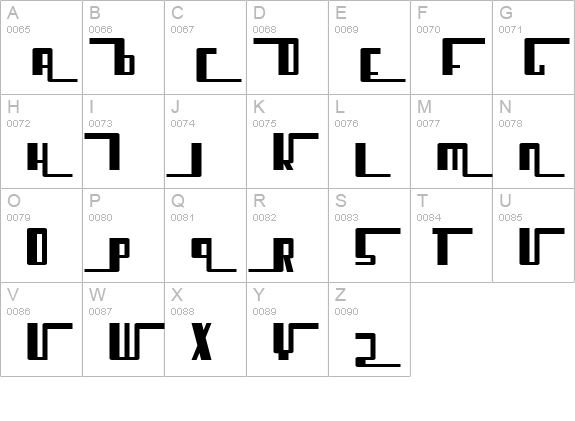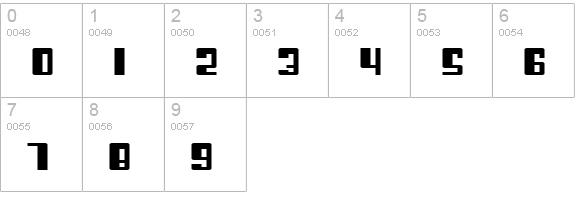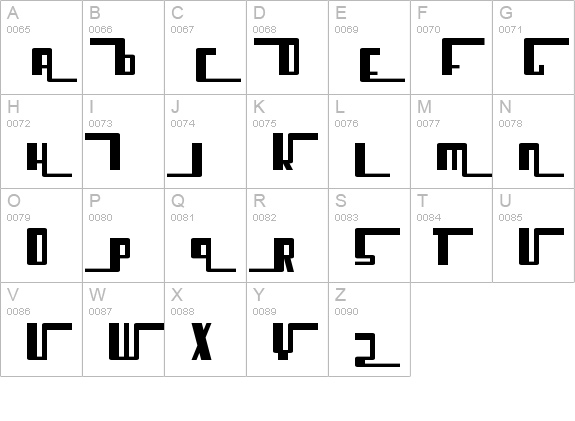
SF Cosmic Age Upright is a captivating and futuristic font that is sure to transport your designs to another dimension. With its sleek and modern appearance, this font is perfect for capturing the essence of the cosmos in your projects. The unique and bold letterforms of SF Cosmic Age Upright exude a sense of innovation and forward-thinking. Its sharp edges and geometric shapes create a sense of movement, making it ideal for conveying a sense of dynamism and energy in your designs. This font is not only visually stunning, but it is also incredibly versatile. Whether you are designing a futuristic poster, a sci-fi book cover, or an eye-catching logo, SF Cosmic Age Upright will add a touch of cosmic magic to your work. What sets SF Cosmic Age Upright apart is that it is freely available to download at FontsMarket.com. This means that you can unleash your creativity without any limitations or restrictions. Whether you are a professional designer or a hobbyist, you can bring your ideas to life with this font, without having to worry about any costs. So, why wait? Embrace the cosmic age and download SF Cosmic Age Upright today from FontsMarket.com. Let your imagination soar and create designs that are out of this world.